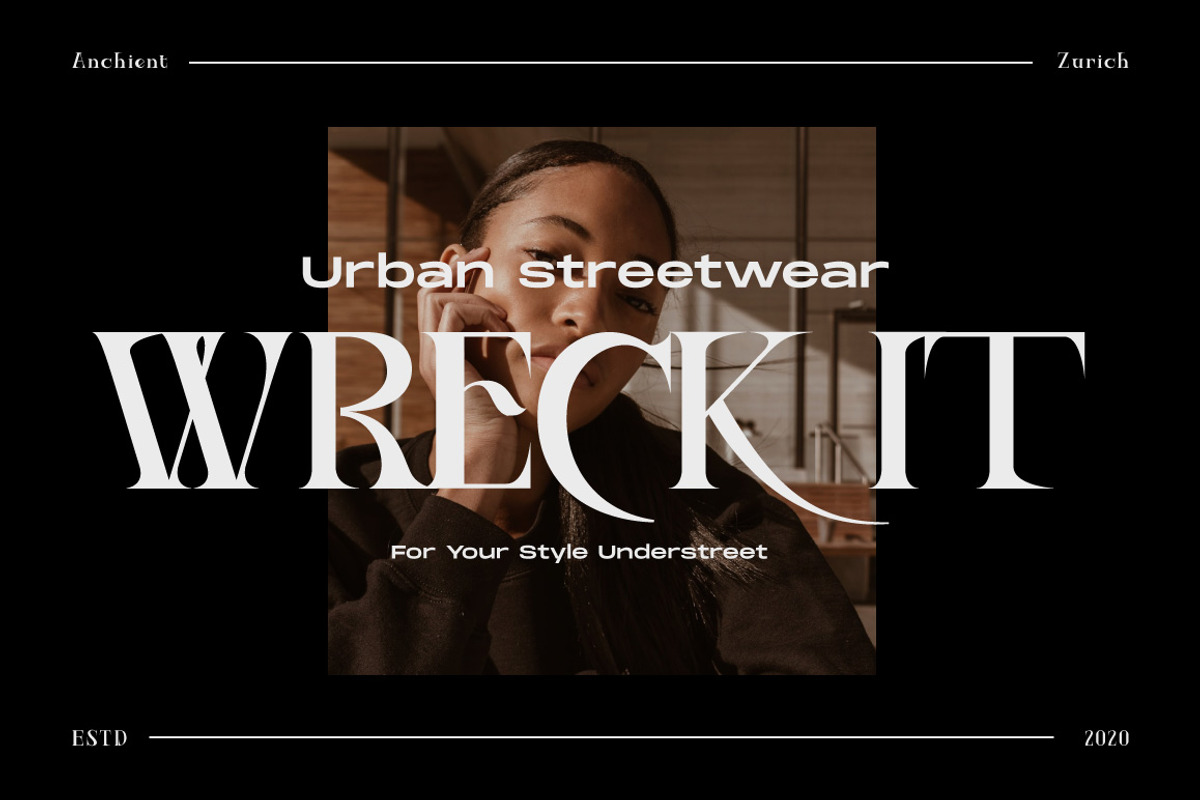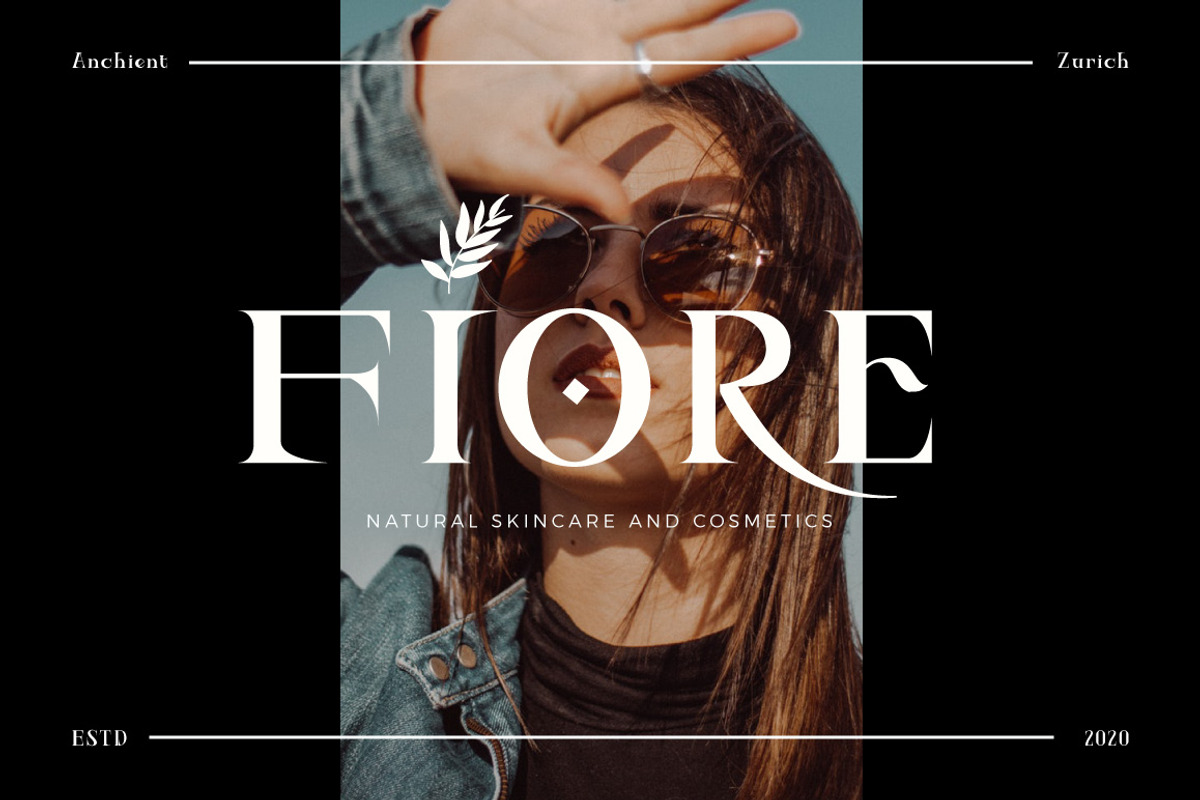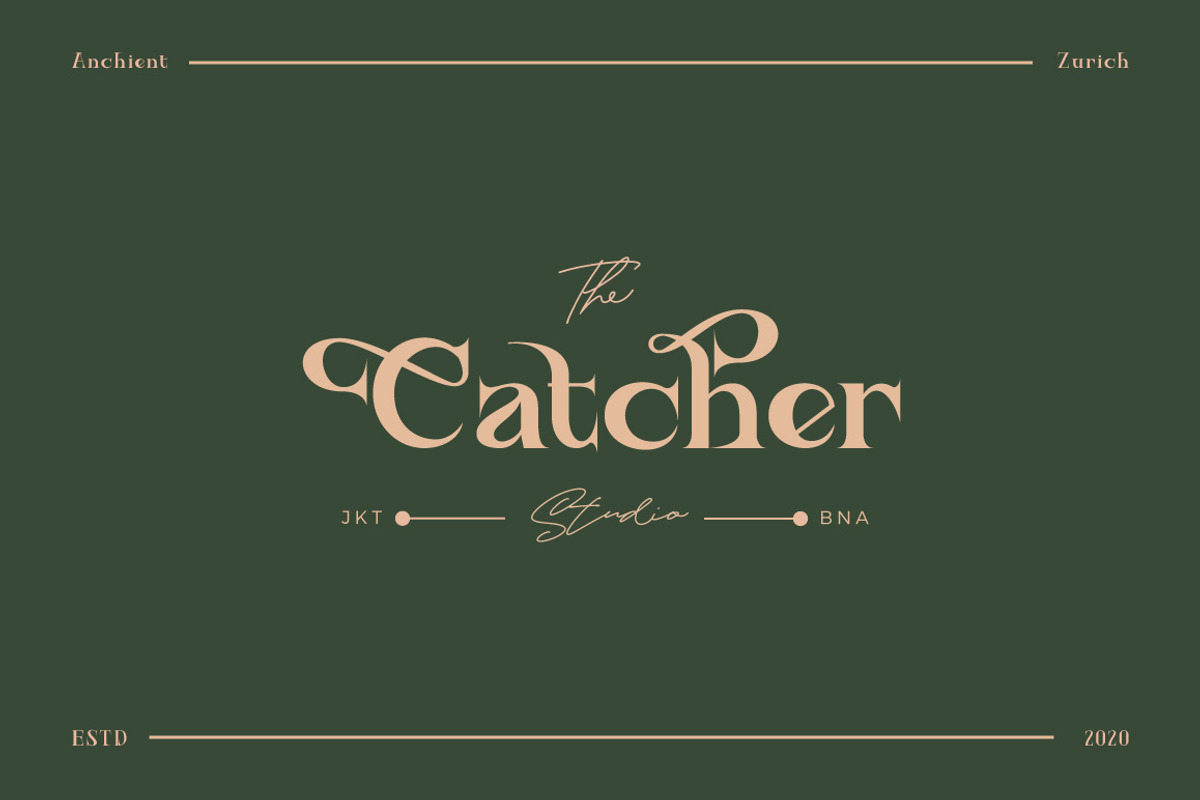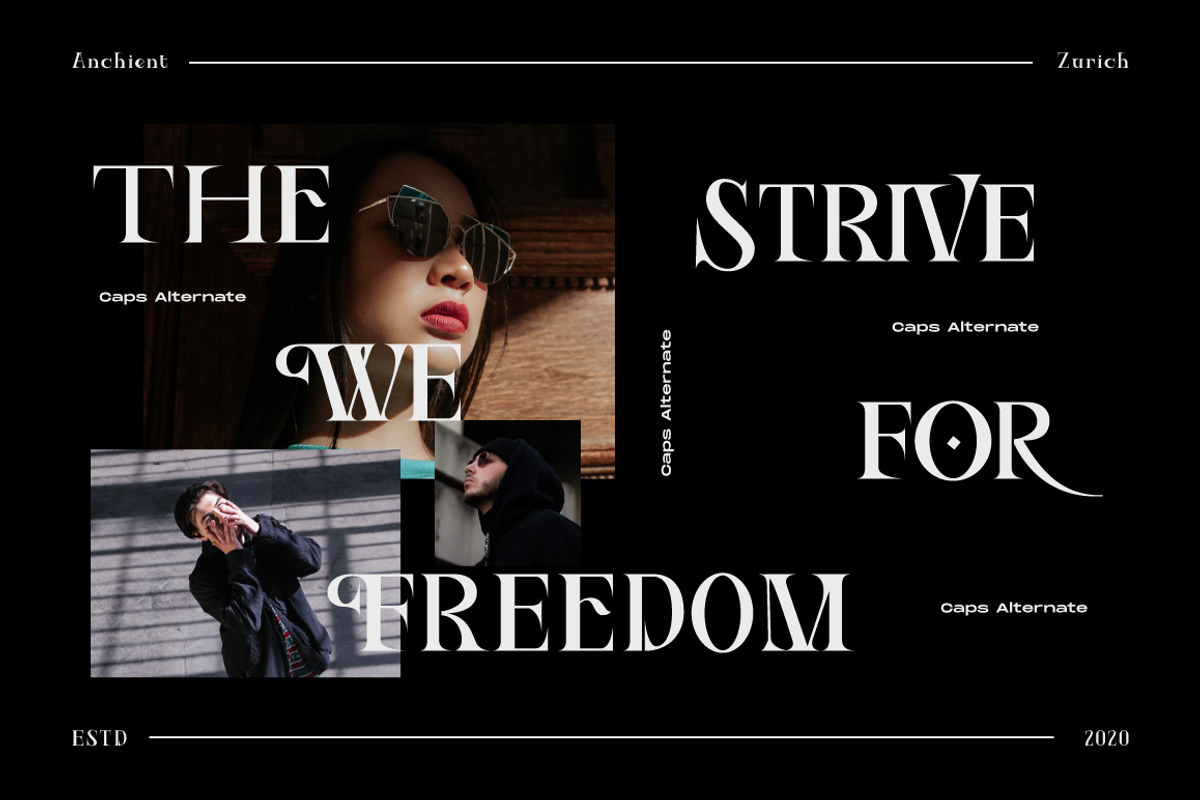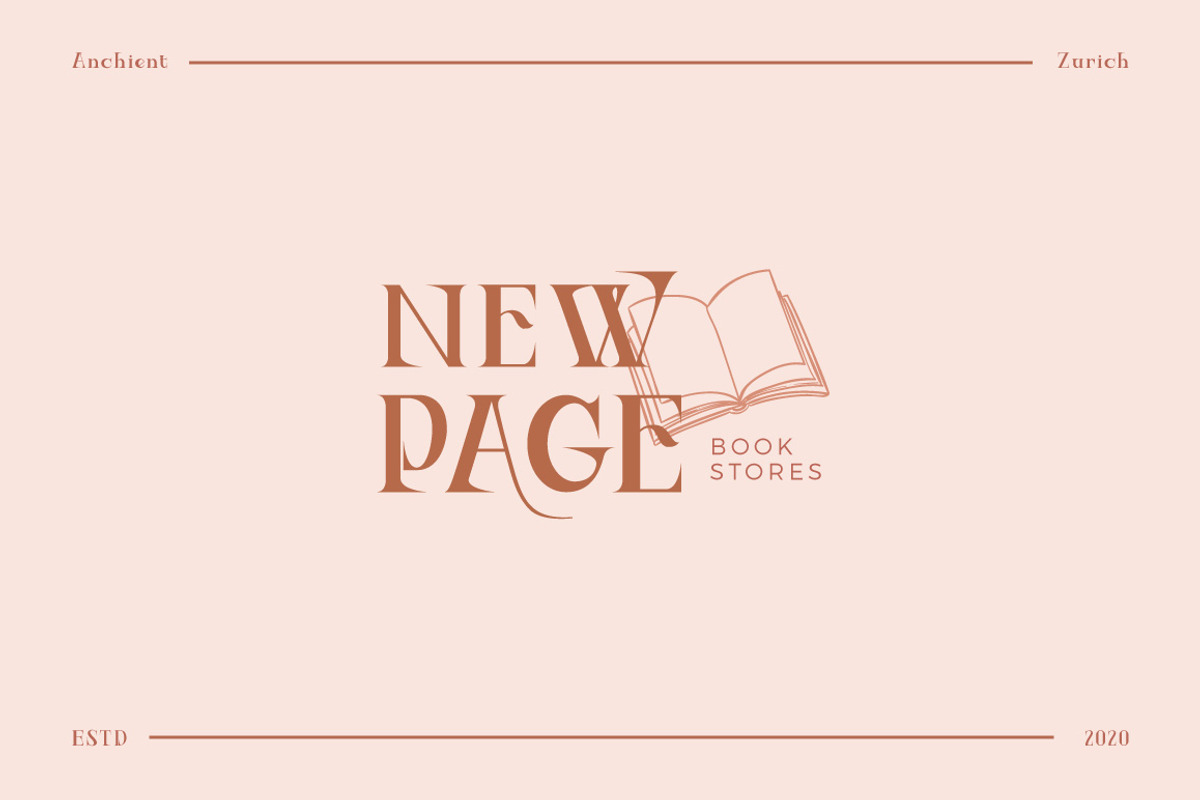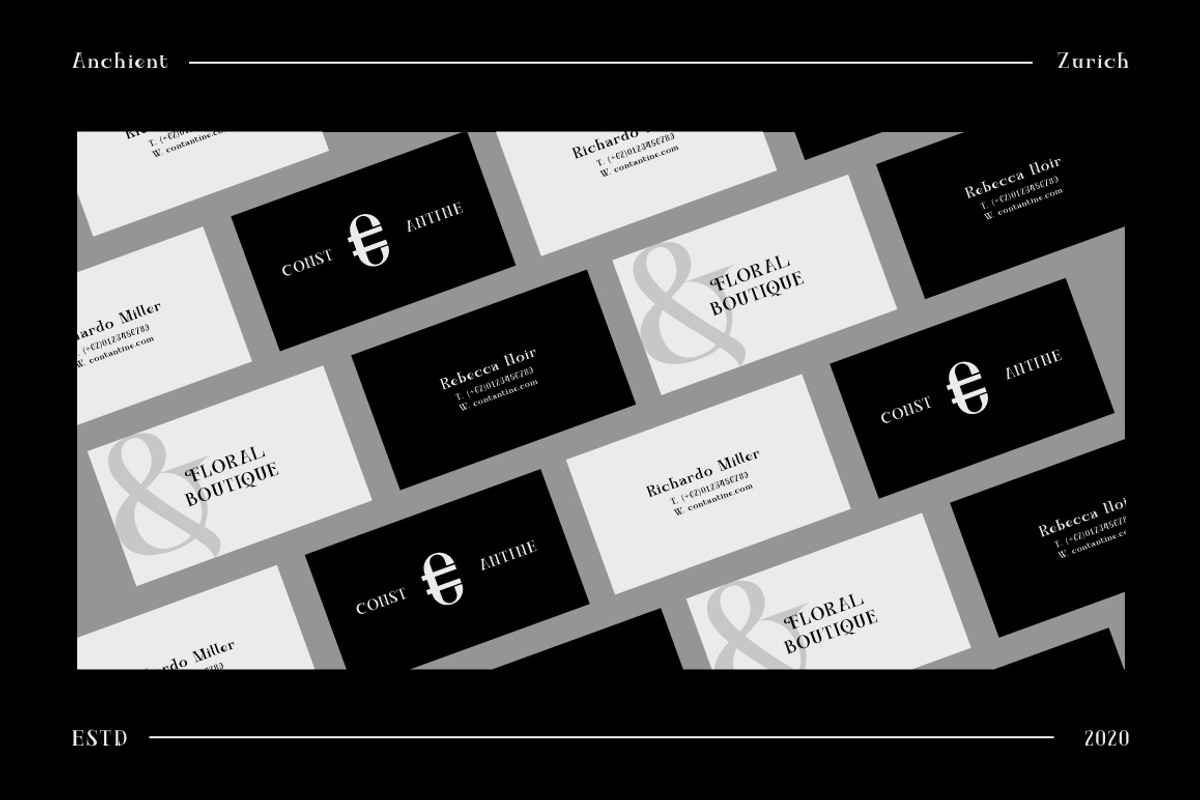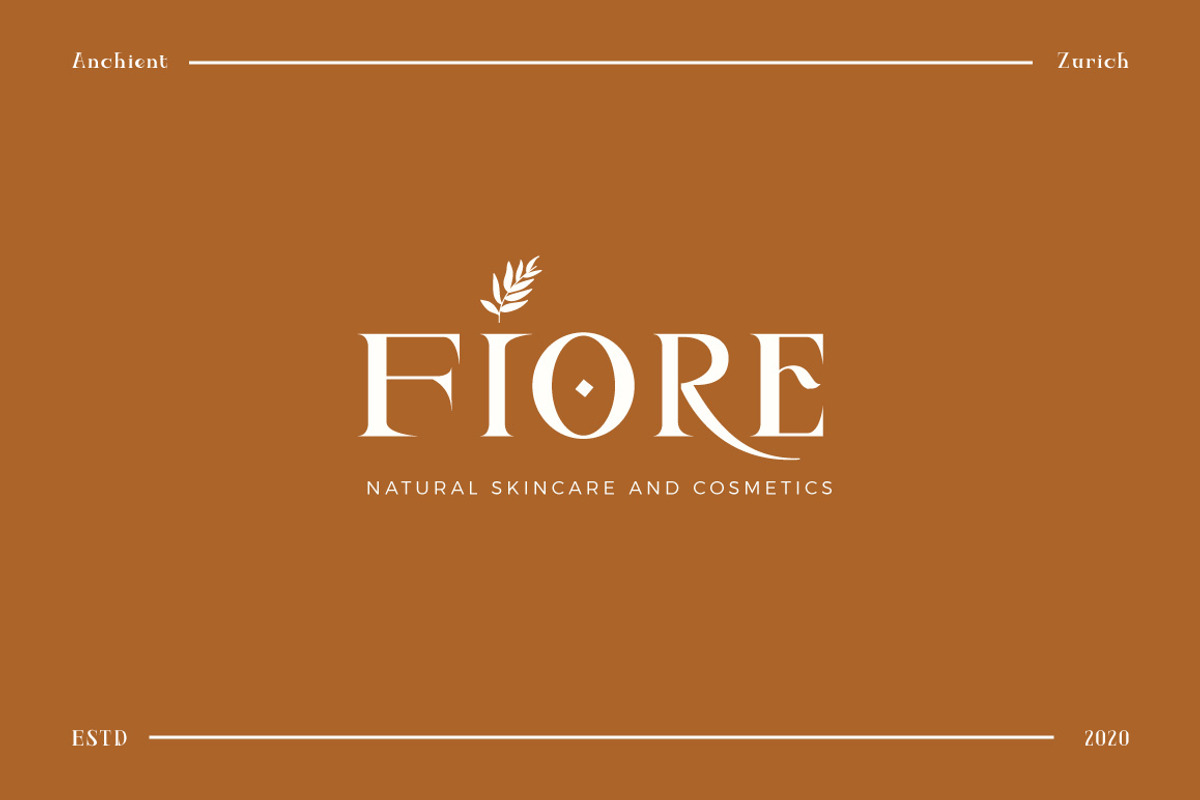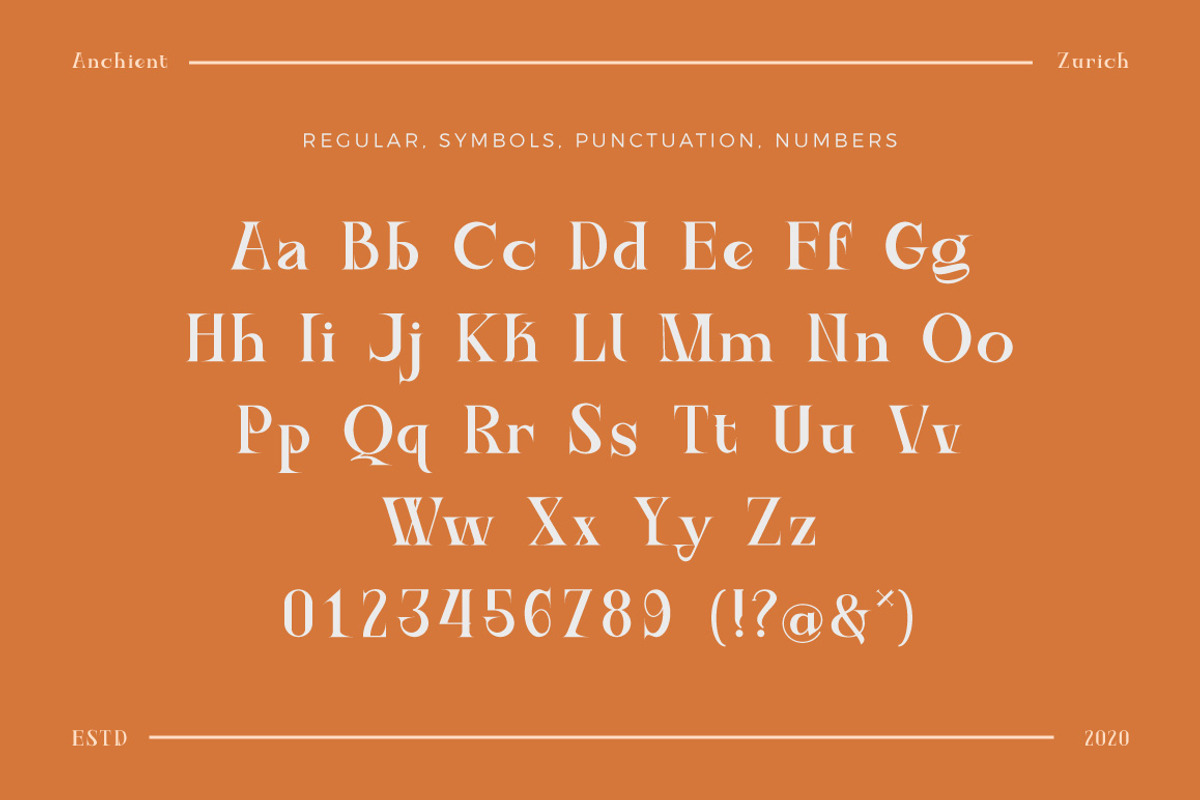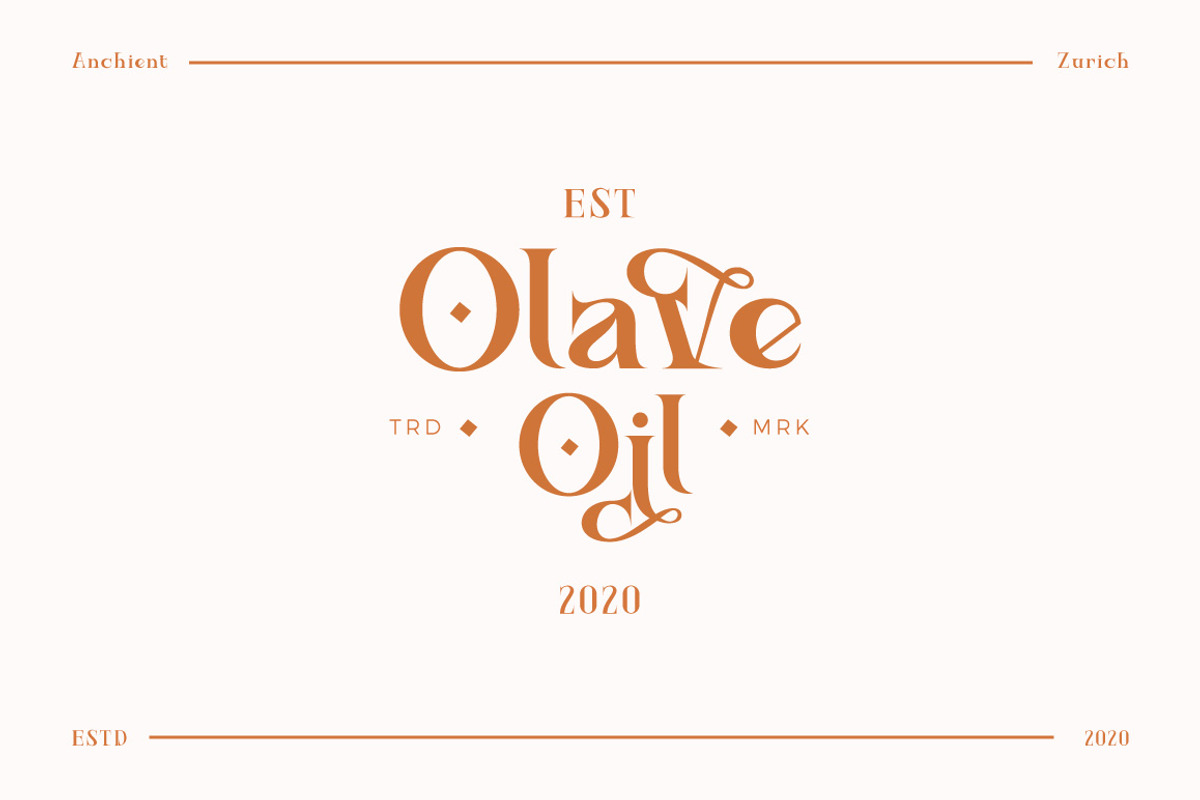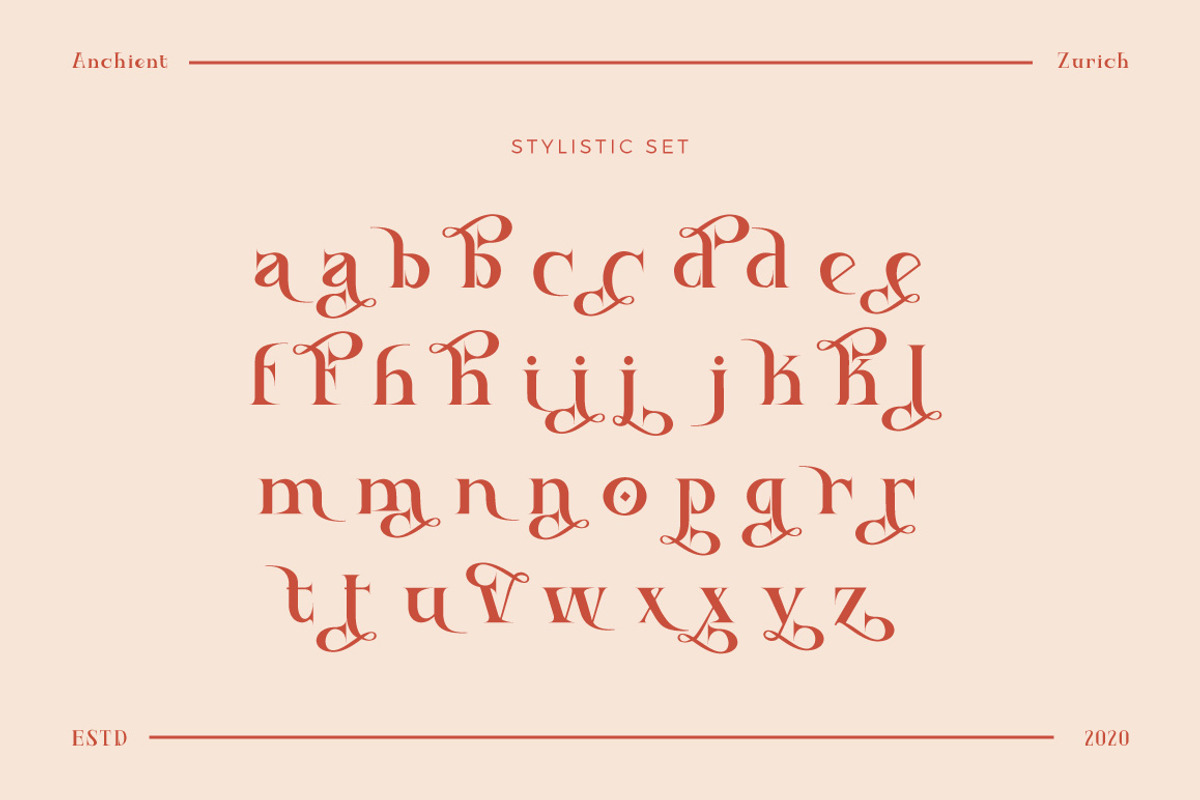
Ancient Zurich - Elegant Serif Logo
Ancient Zurich is Elegant serif style typeface, this font is ideal for those big bold headings or wedding invitations. It's got hundreds of characters and ligatures plus all those European letters! Ancient Zurich pairs perfectly with a light scripts font or minimal sans serif.
- Alternate Character Capital Character
- Stylistic Set lowercase Character
- Letters, Numbers, punctuation